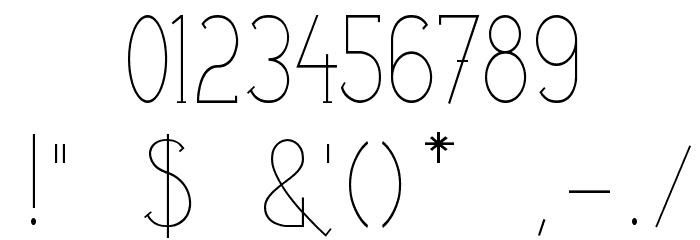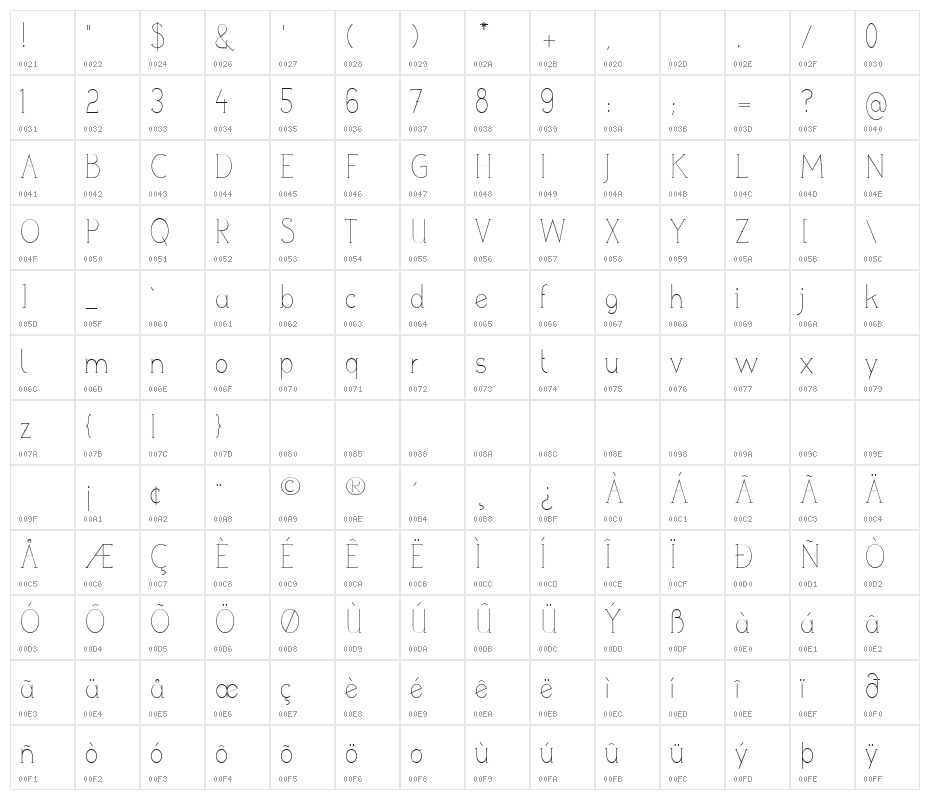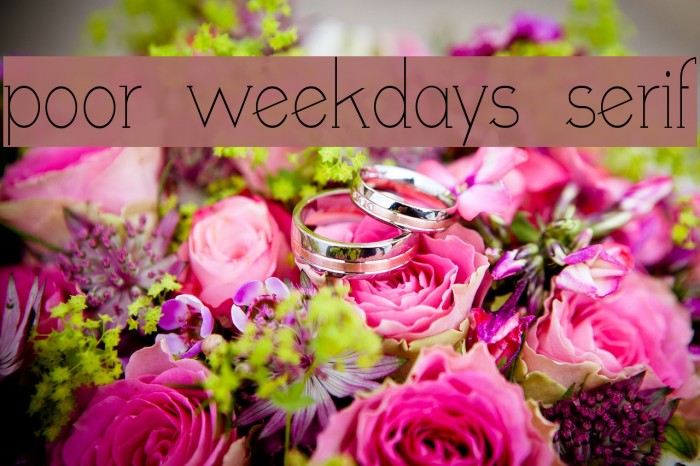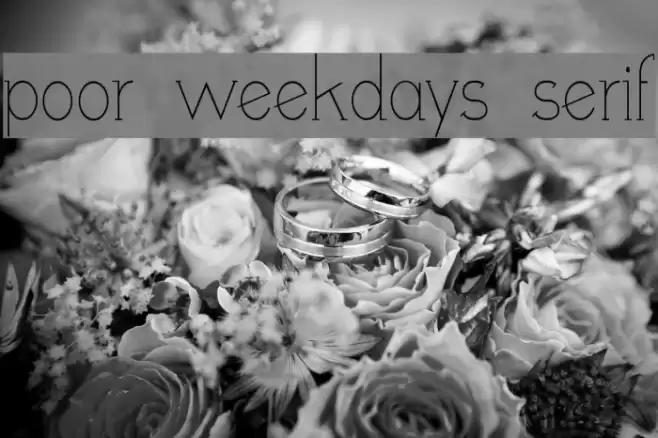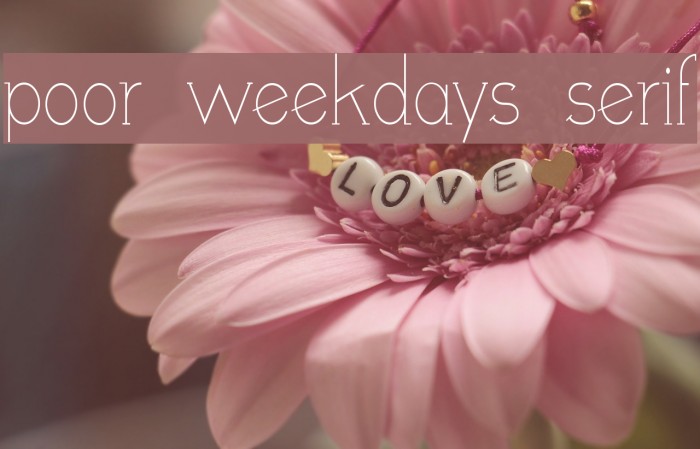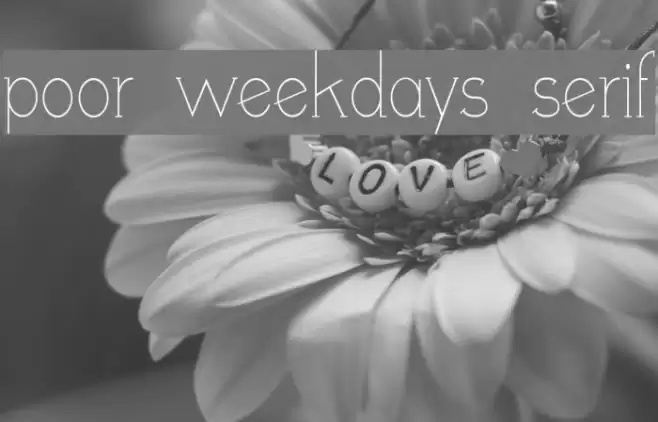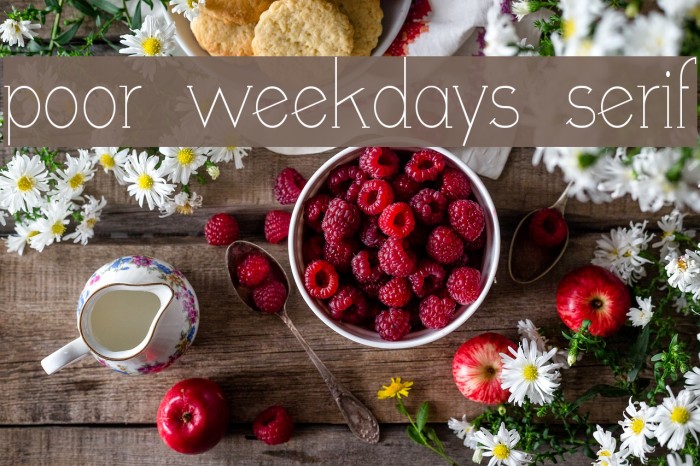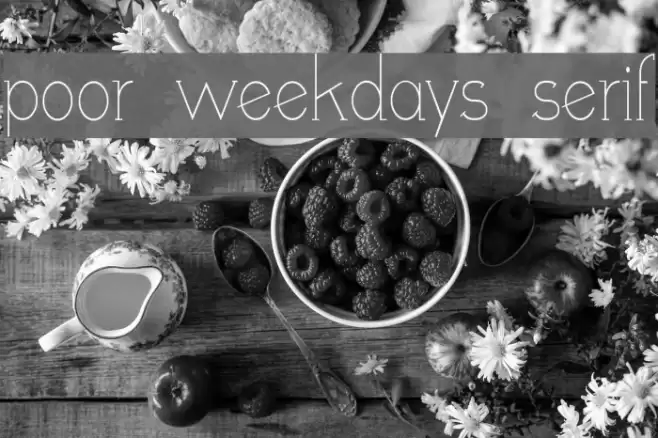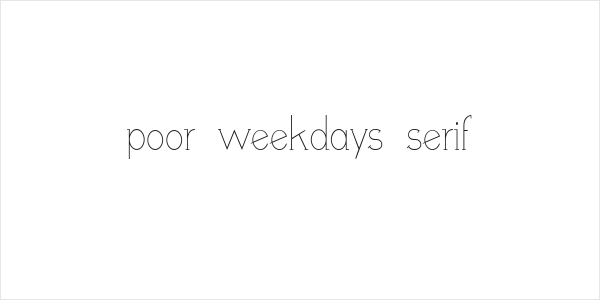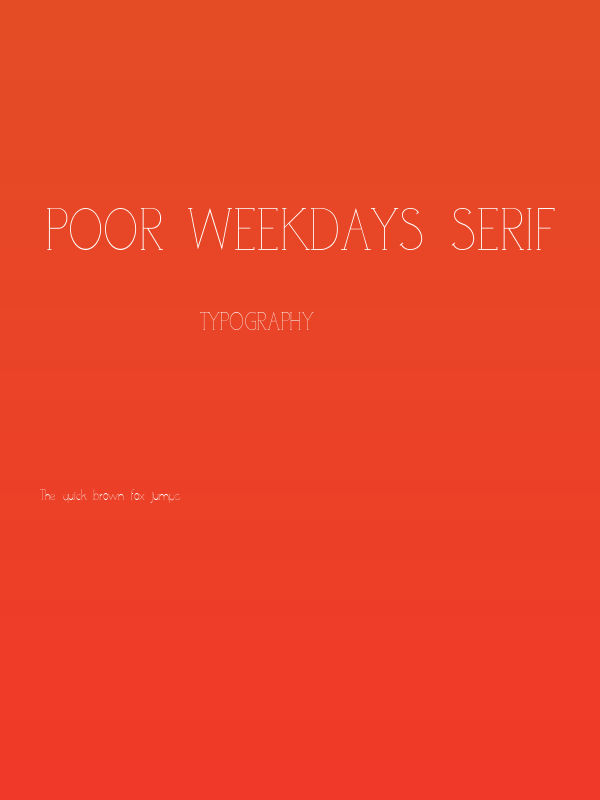
poor weekdays serif Font
poor weekdays serif Description
This font features a delicate and elegant design with thin strokes and a refined appearance. The characters are tall and slender, with a subtle serif that adds a touch of sophistication. The uppercase letters are particularly elongated, giving the font a graceful and airy feel. The lowercase letters maintain a consistent style, with smooth curves and a harmonious flow. The numerals are clear and legible, matching the overall aesthetic of the font. Special characters are included, maintaining the same thin and elegant style. This font is ideal for projects that require a touch of elegance and modernity.
Proposed ProjectsIdeal for wedding invitations, luxury branding, editorial design, and elegant packaging.